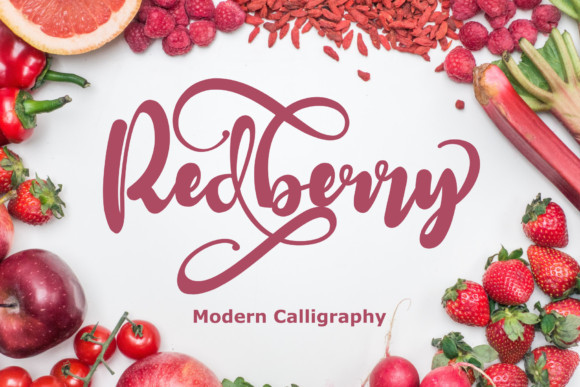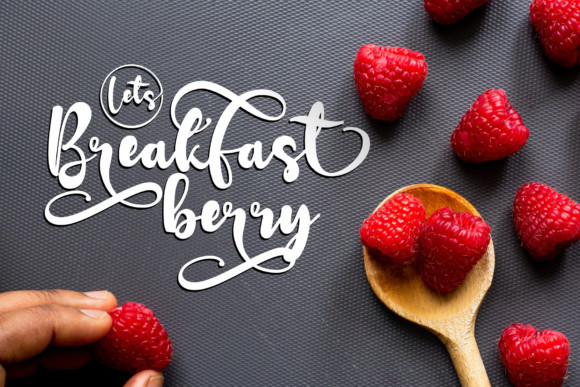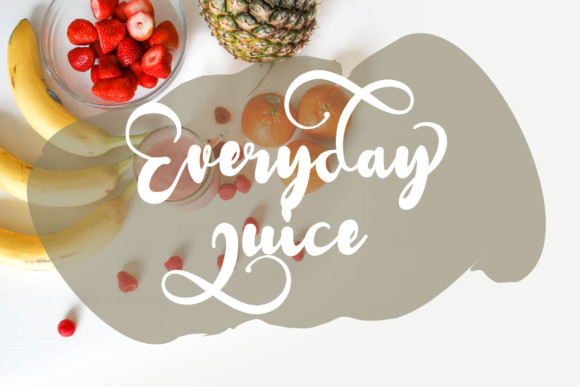
Redberry Font
Redberry feels equally charming and elegant. This stunning display font is a stylish homage to modern calligraphy. It features a varying baseline, smooth lines, gorgeous glyphs and stunning alternates. This font is PUA encoded which means you can access all of the beautiful glyphs and swashes with ease!